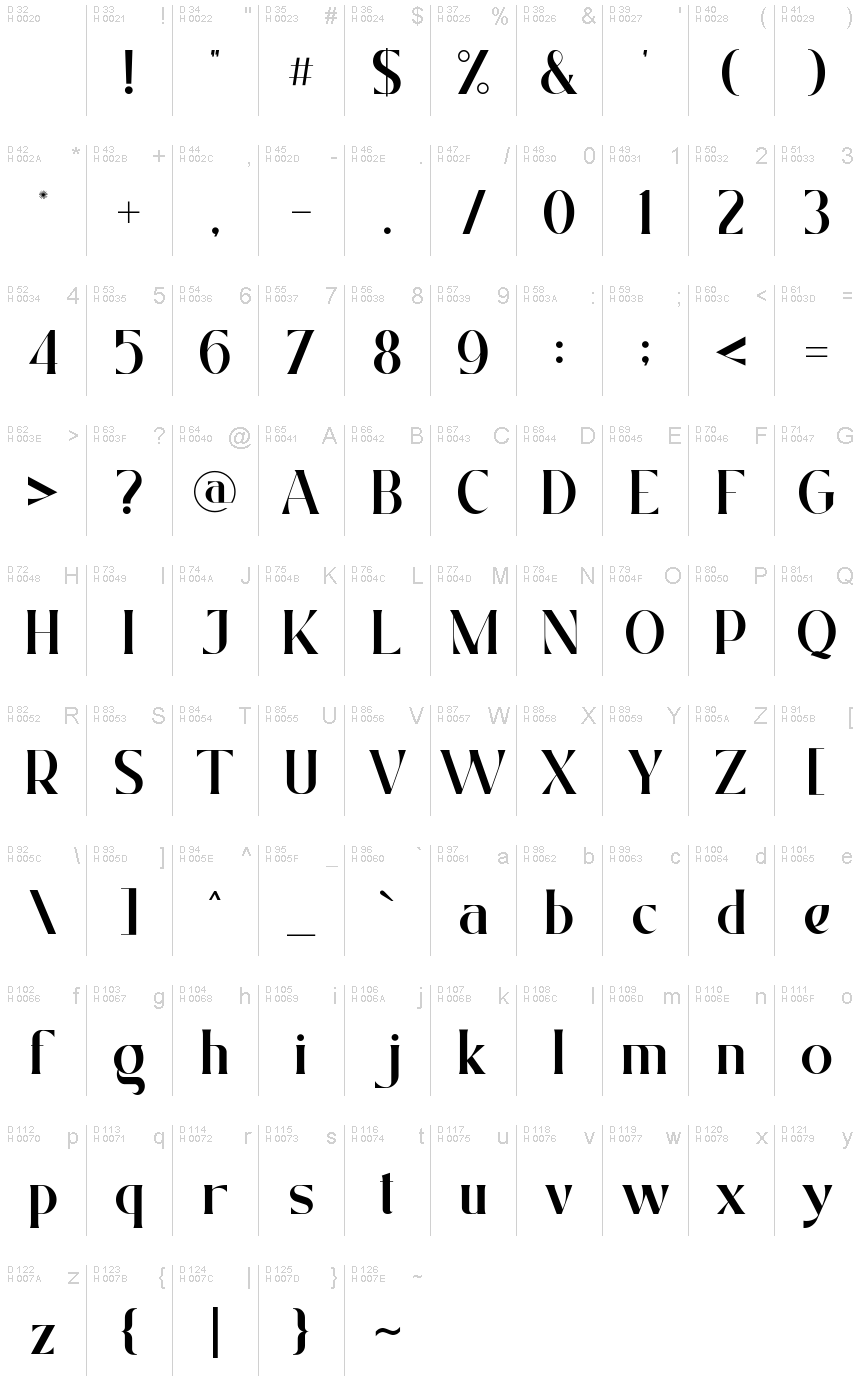
Quickly Gone
Quickly Gone, a captivating serif font designed by Heinzel Std, demands immediate attention. Its strong and imposing presence, accentuated by its bold strokes, evokes a sense of authority and confidence. The generous spacing between characters lends an air of sophistication, while the sharp, angular serifs create a striking visual impact.
This font's versatility shines through, making it a compelling choice for diverse design applications. From bold headings to impactful editorial layouts, Quickly Gone's commanding presence commands the viewer's gaze, effortlessly drawing attention to the most important elements. Its timeless elegance and unwavering presence make it a versatile tool for branding, signage, and editorial projects that seek to convey a sense of power and gravitas.